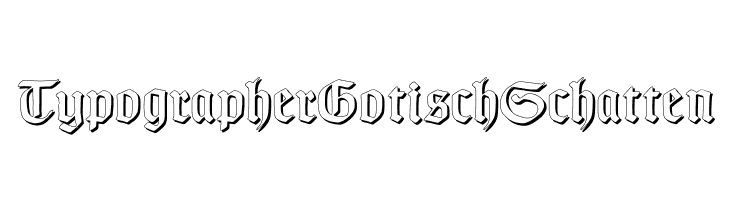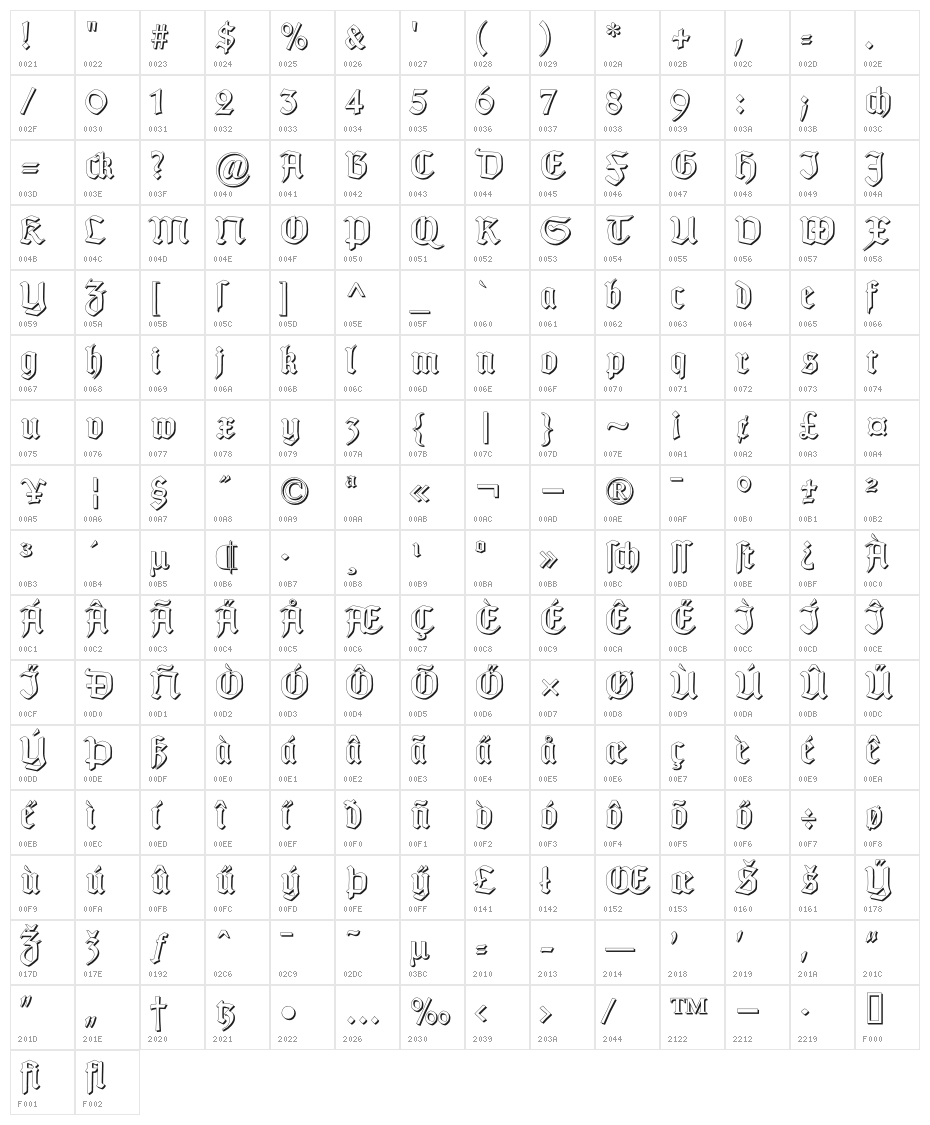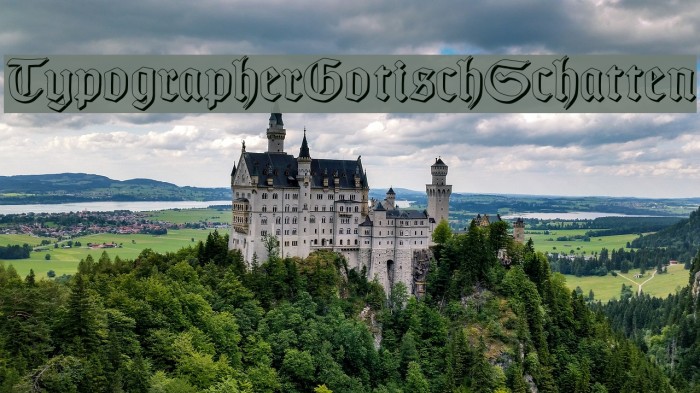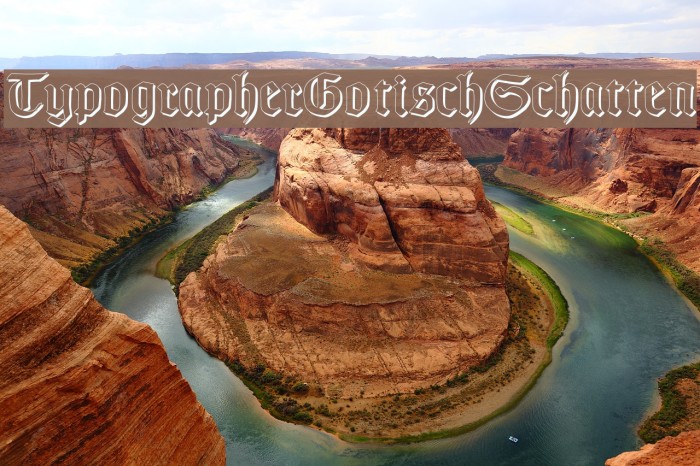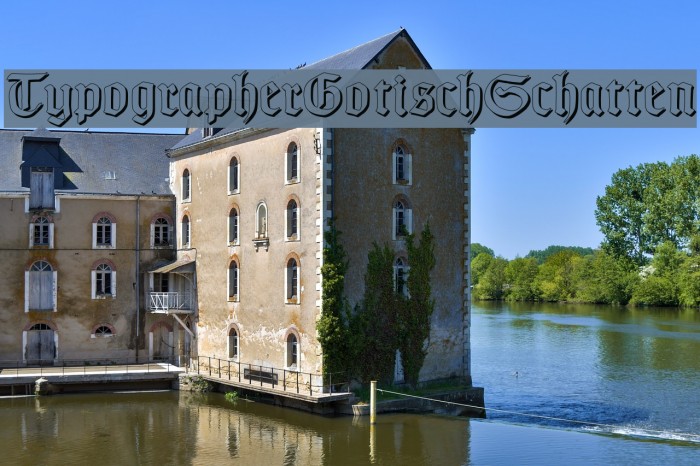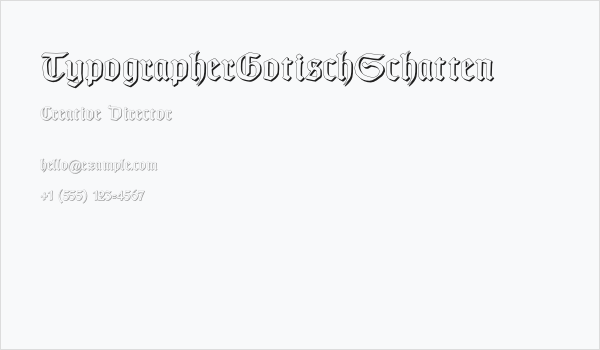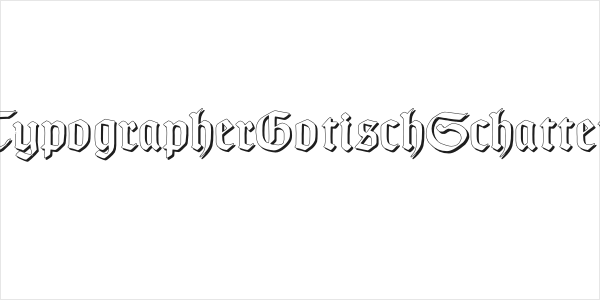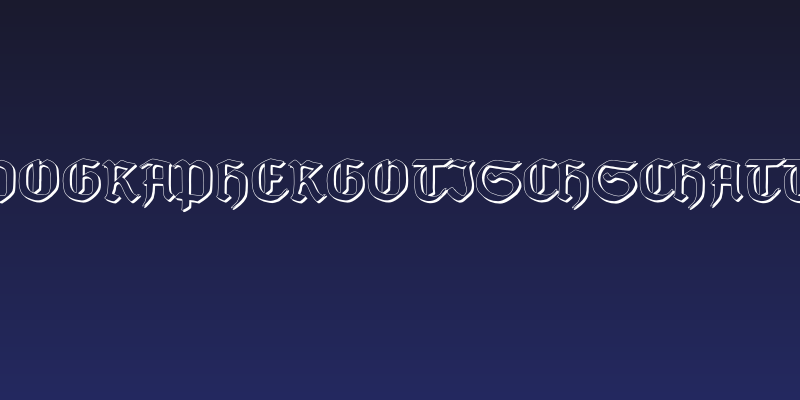
TypographerGotischSchatten Font
TypographerGotischSchatten Description
This font exhibits a traditional blackletter style, characterized by its ornate and intricate design. The letters are bold and angular, with sharp edges and a distinct shadow effect that adds depth and dimension. The uppercase and lowercase letters maintain a consistent style, with elaborate serifs and flourishes that evoke a sense of historical elegance. The numerals and special characters are equally detailed, ensuring a cohesive look across all elements. This font is ideal for projects that require a touch of classic sophistication and a nod to medieval script traditions.
| Proposed Projects | Ideal for historical documents, certificates, invitations, and branding that requires a classic, medieval touch. |